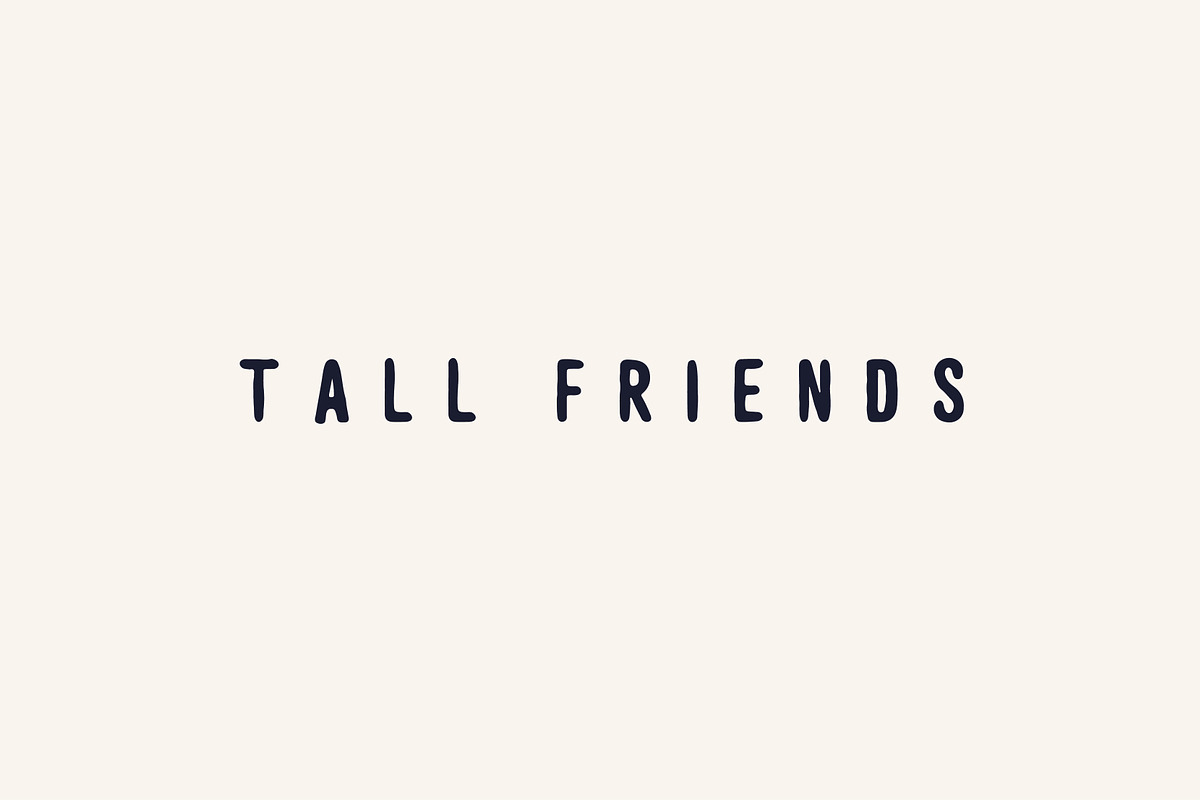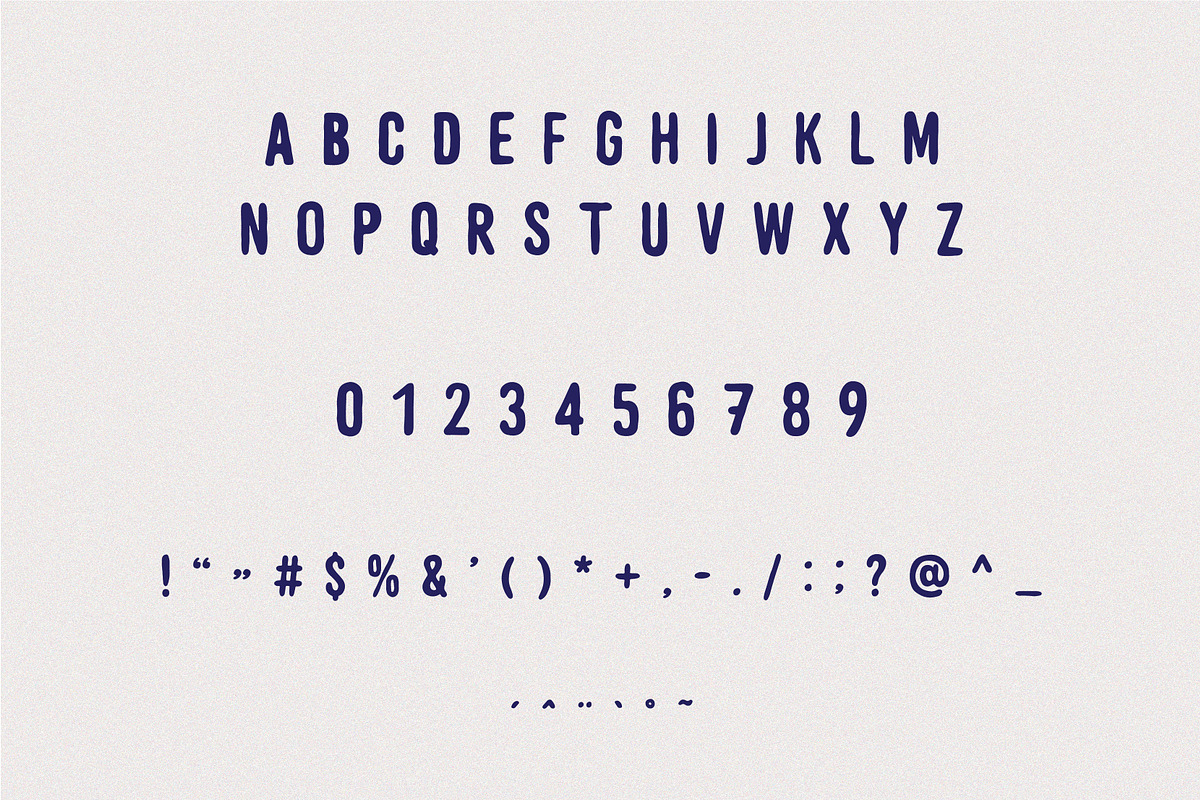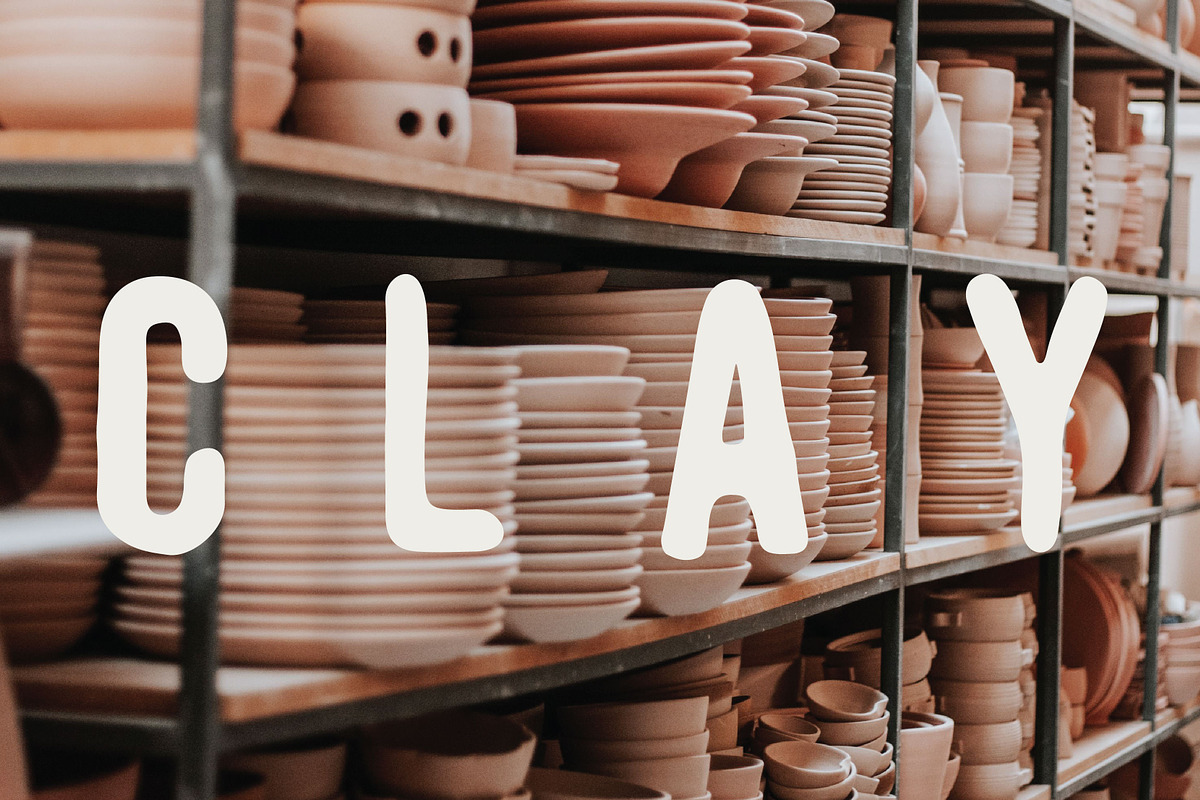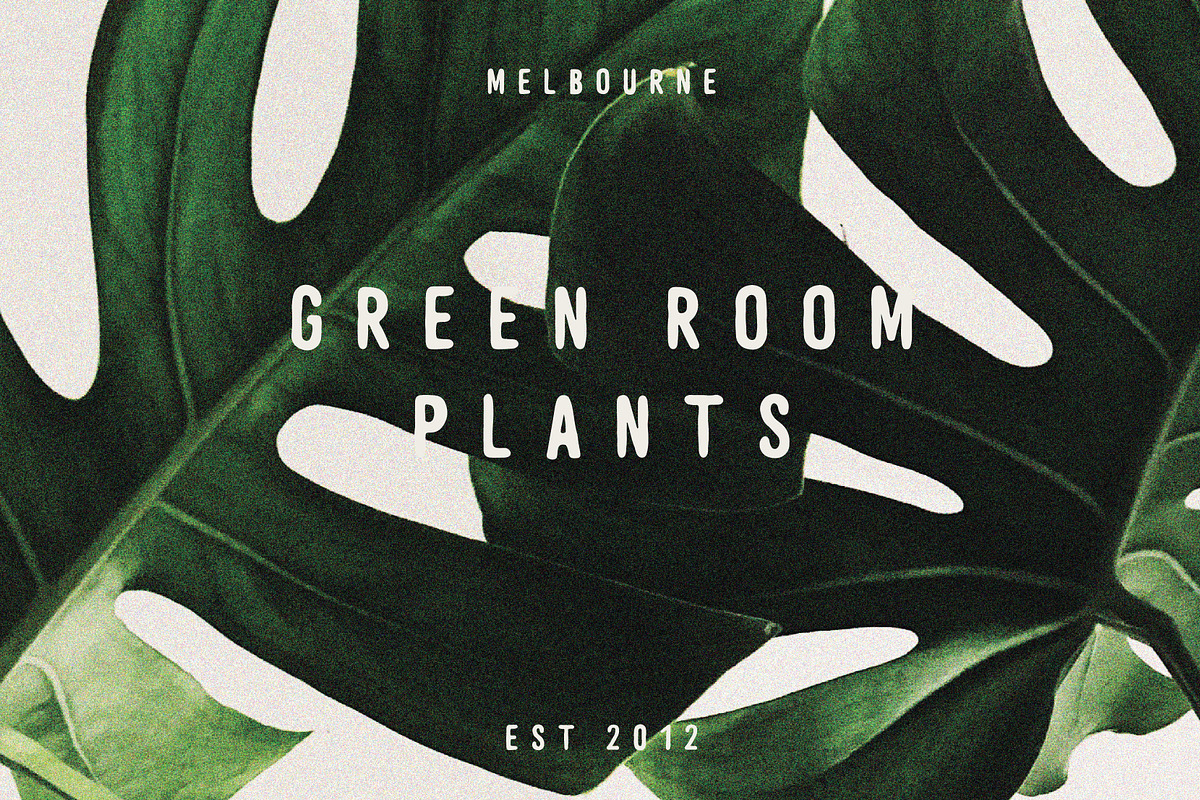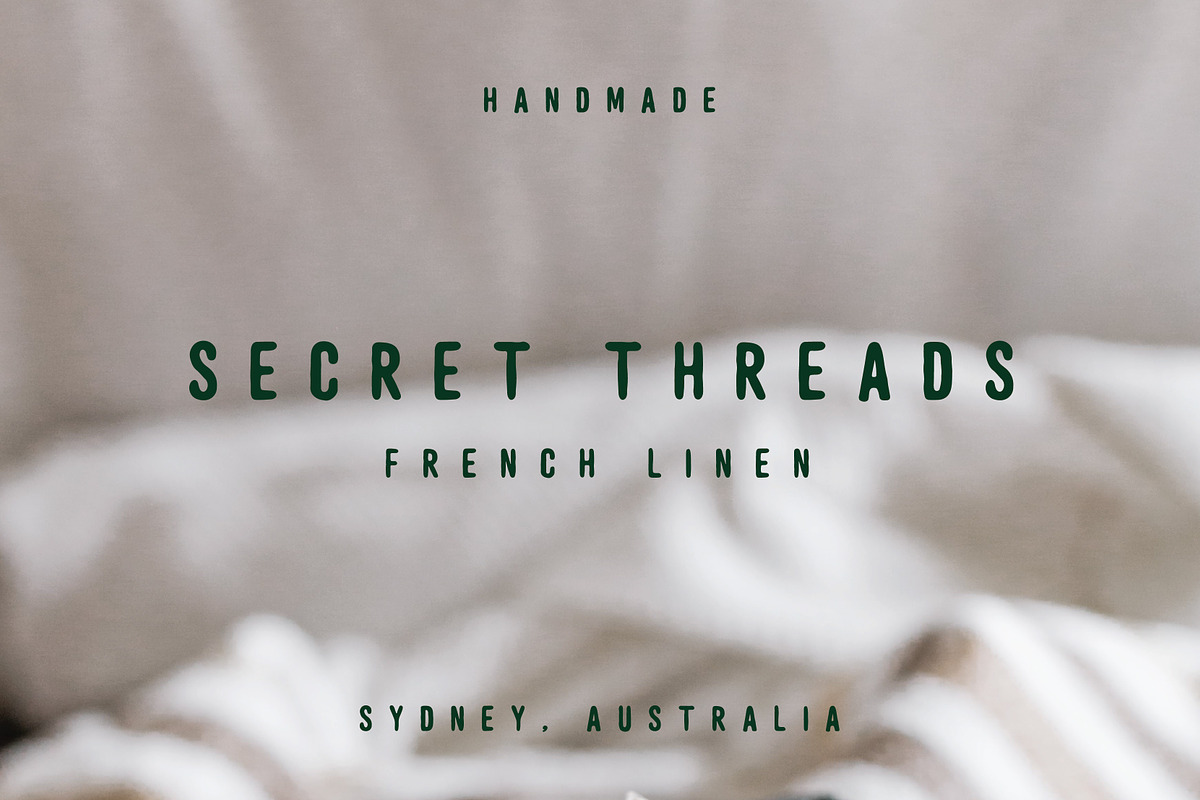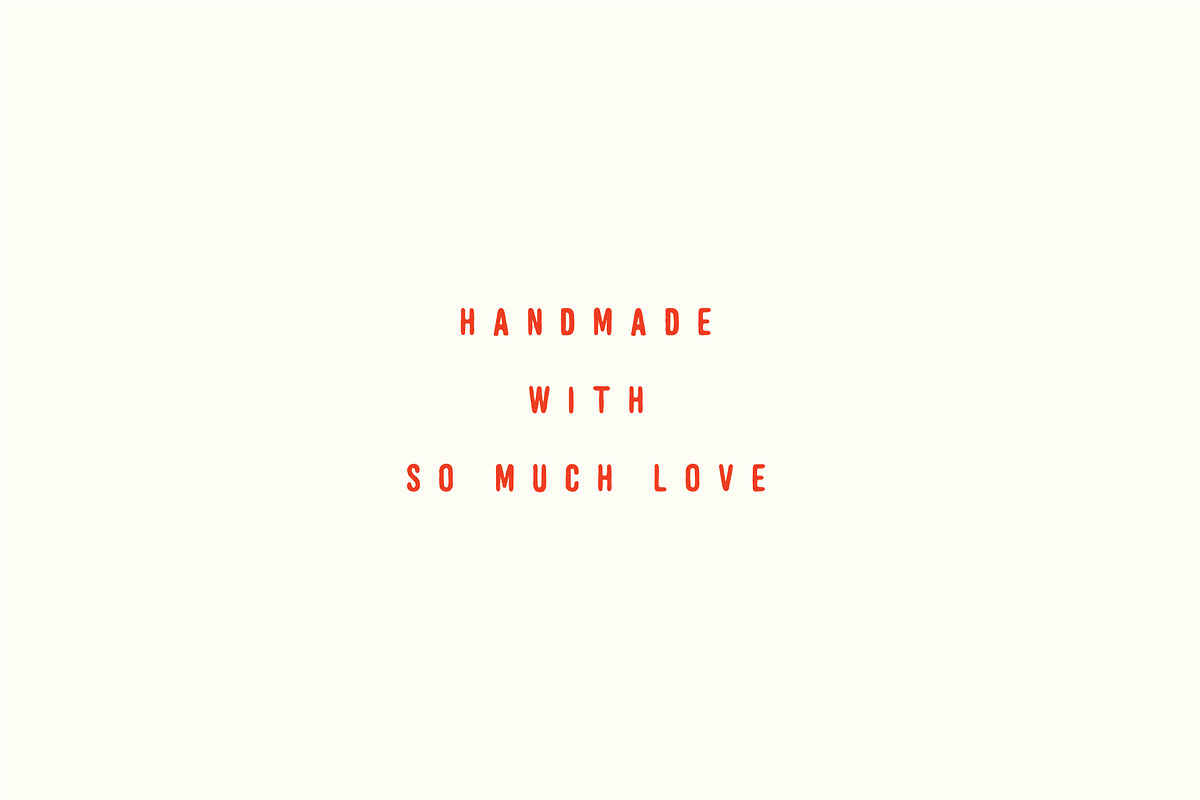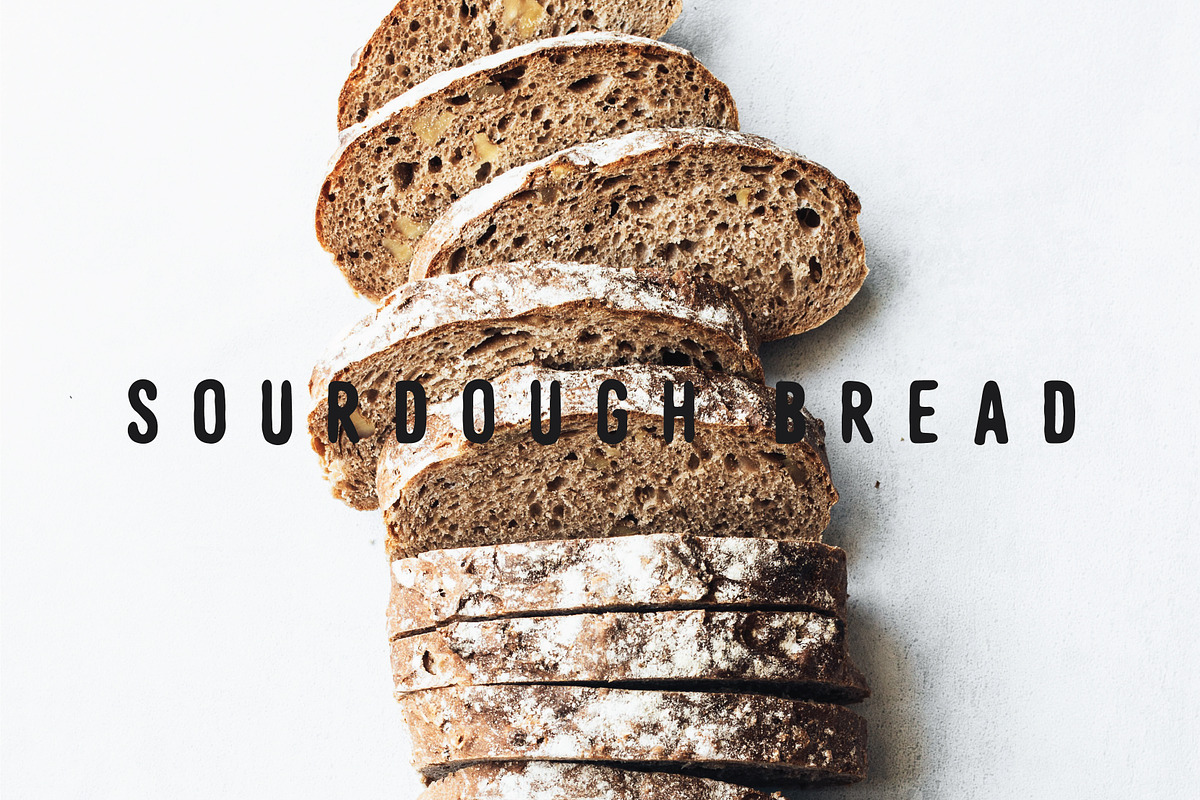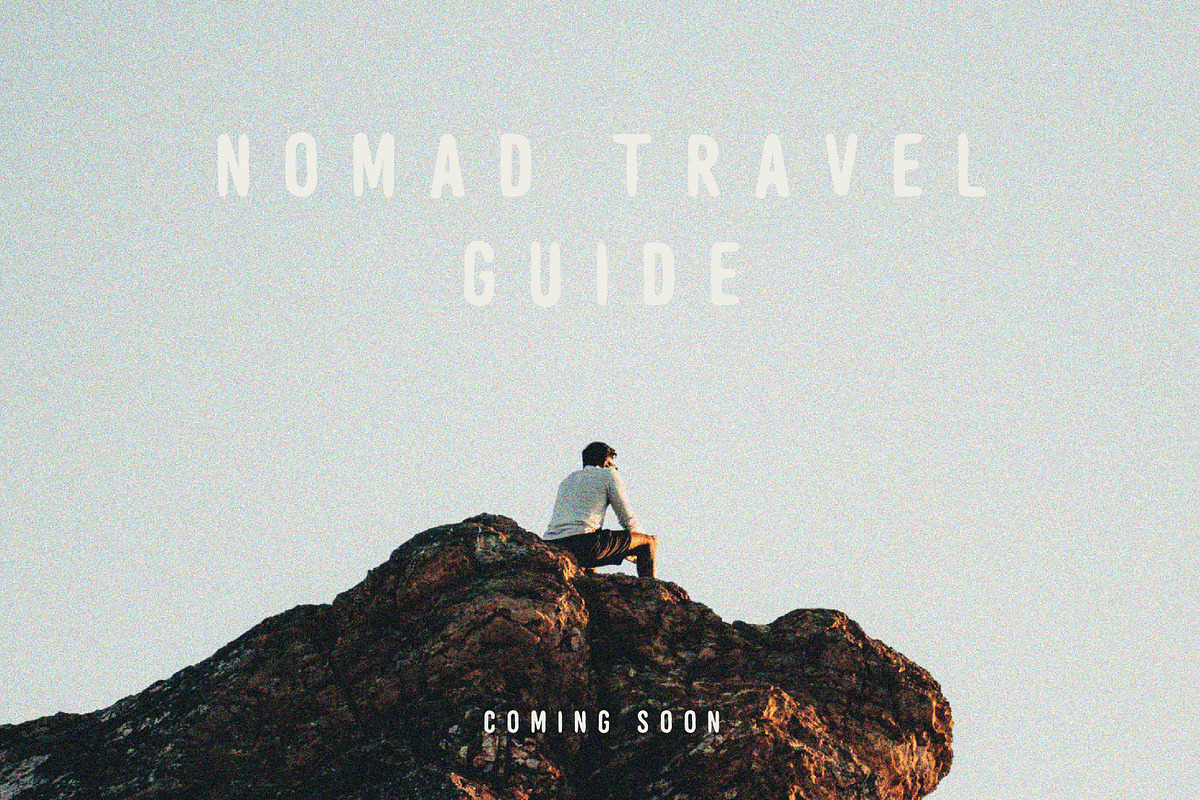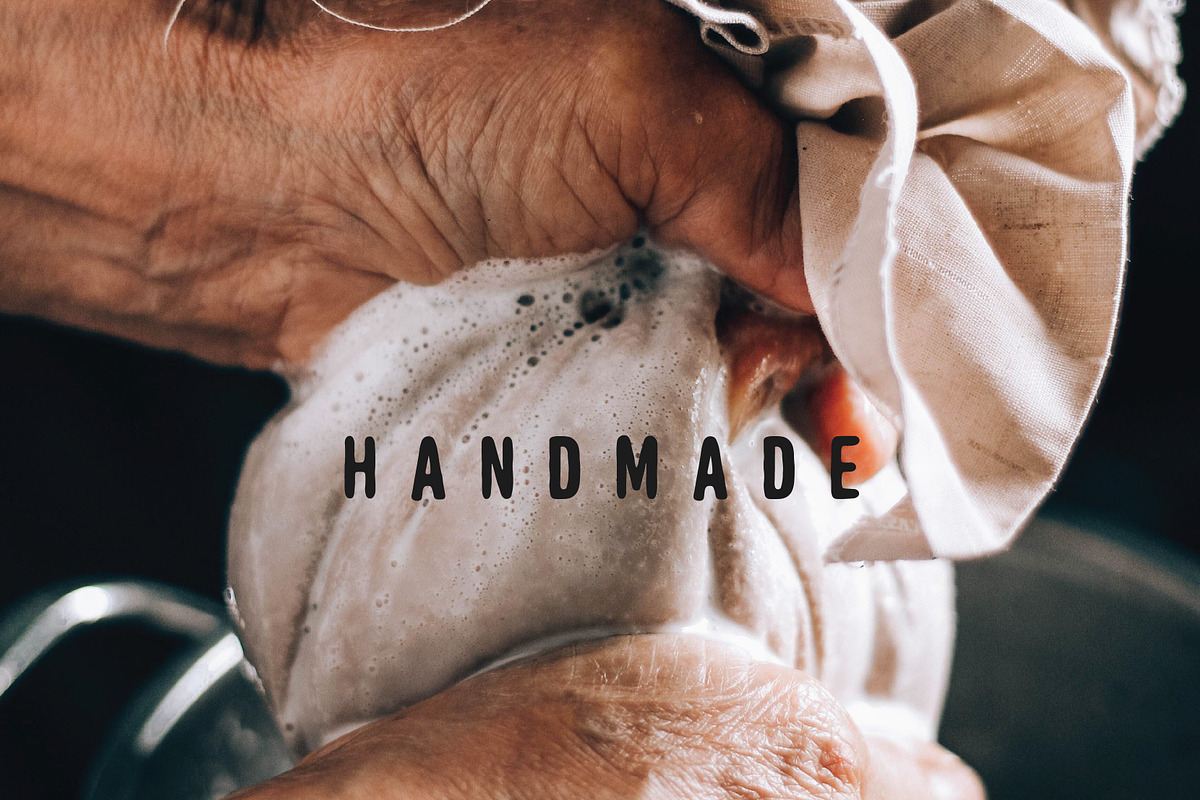
TALL FRIENDS | handmade sans serif
TALL FRIENDS | handwritten sans serif font
⋒ perfect for ⋒
- handmade products
- rustic small food businesses
- plant businesses
- cafés
- ceramics
- branding
- logos